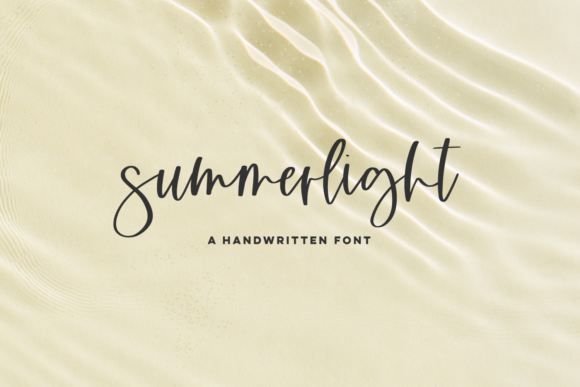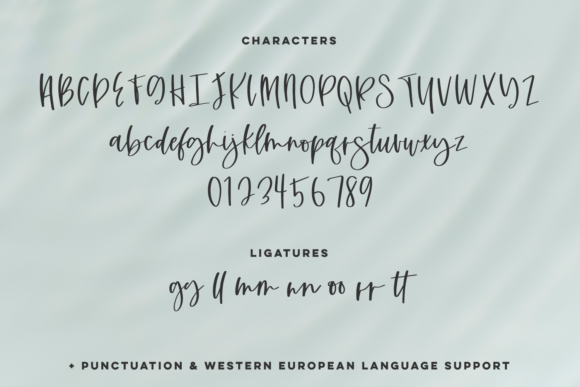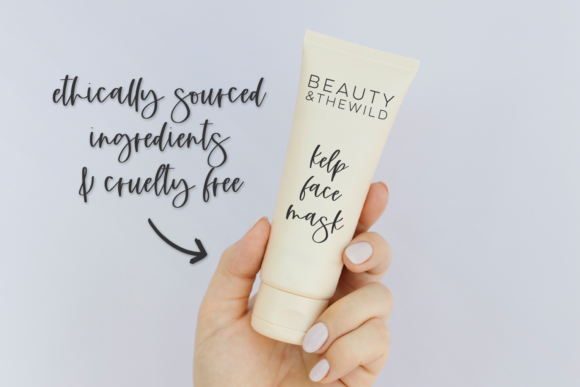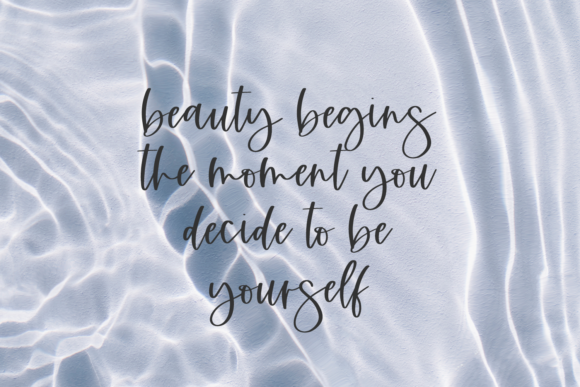
About Summerlight Script Font
Summerlight Script is a delicate and elegant handwritten font. Its distinct and well balanced letters make this font a masterpiece. Fall in love with its incredibly versatile style and use it to create spectacular designs!